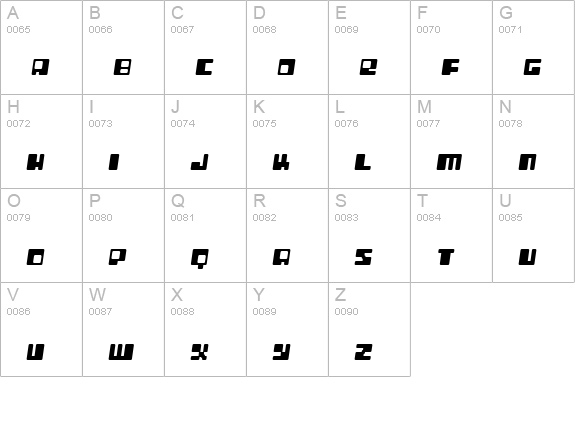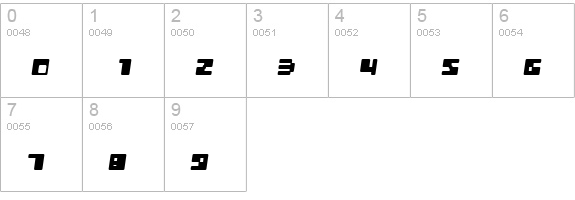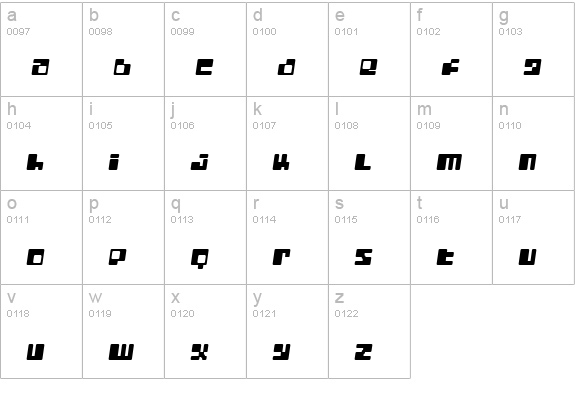
The Digit LoFi Shift font is a unique and versatile typeface that brings a distinctive retro aesthetic to your design projects. Its charmingly imperfect lines and vintage-inspired look make it perfect for adding a touch of nostalgia to posters, album covers, and more. With its playful yet sophisticated style, Digit LoFi Shift is sure to stand out and make a statement. The best part? This fantastic font is available for free download at FontsMarket.com! Simply head over to the website and grab your own copy of Digit LoFi Shift to elevate your designs and give them that extra edge. Don't miss out on this amazing opportunity to enhance your creative projects with this eye-catching and versatile font.